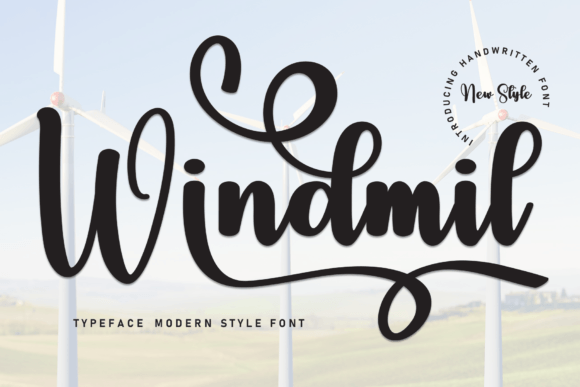
Step into a world of nostalgia and vintage charm with Windmill Font, the enchanting script font that captures the essence of bygone eras. Its graceful curves and playful strokes evoke a sense of warmth and joy, making it the perfect choice for designers seeking a touch of timeless elegance in their creative projects.
With Windmill Font, you'll have the power to transform ordinary designs into extraordinary works of art. Its versatility knows no bounds, allowing you to craft stunning wedding invitations, heartfelt greeting cards, eye-catching posters, and captivating social media graphics. Let your imagination soar as you explore the endless possibilities this font offers.
Unleash the magic of Windmill Font and transport your audience back to a simpler time, where handwritten letters and delicate calligraphy held a special place in our hearts. Create designs that evoke a sense of nostalgia and charm, leaving a lasting impression on those who encounter them.
Immerse yourself in the beauty of Windmill Font and discover a world of creative possibilities. Its unique style adds a personal touch to every project, making it the perfect choice for designers who value authenticity and individuality. Let your creativity flourish as you explore the endless possibilities this font has to offer.